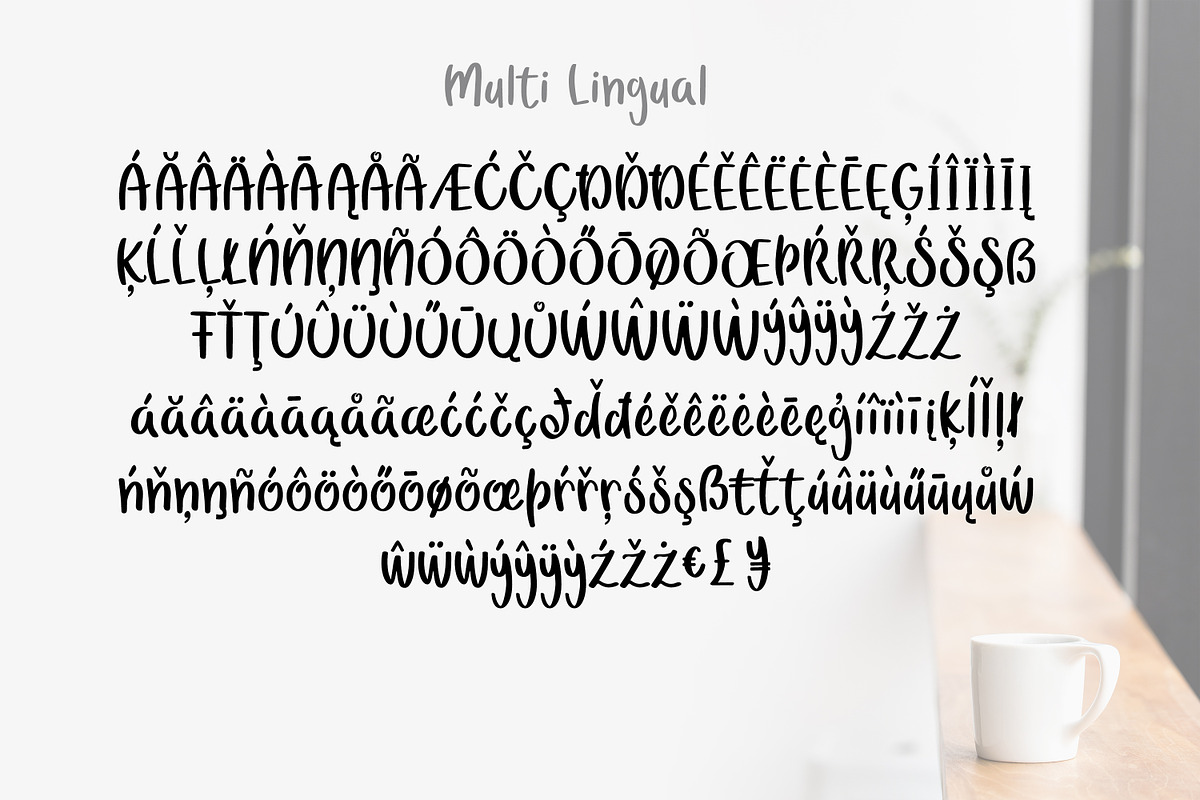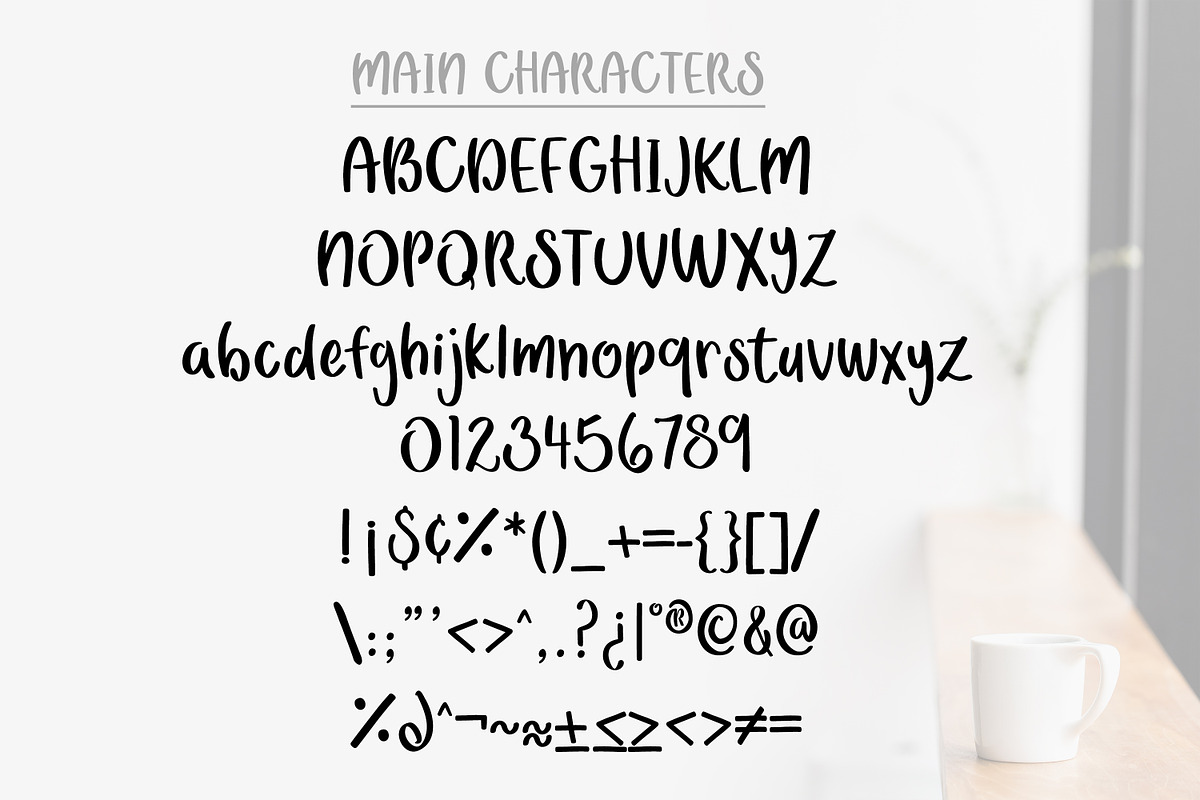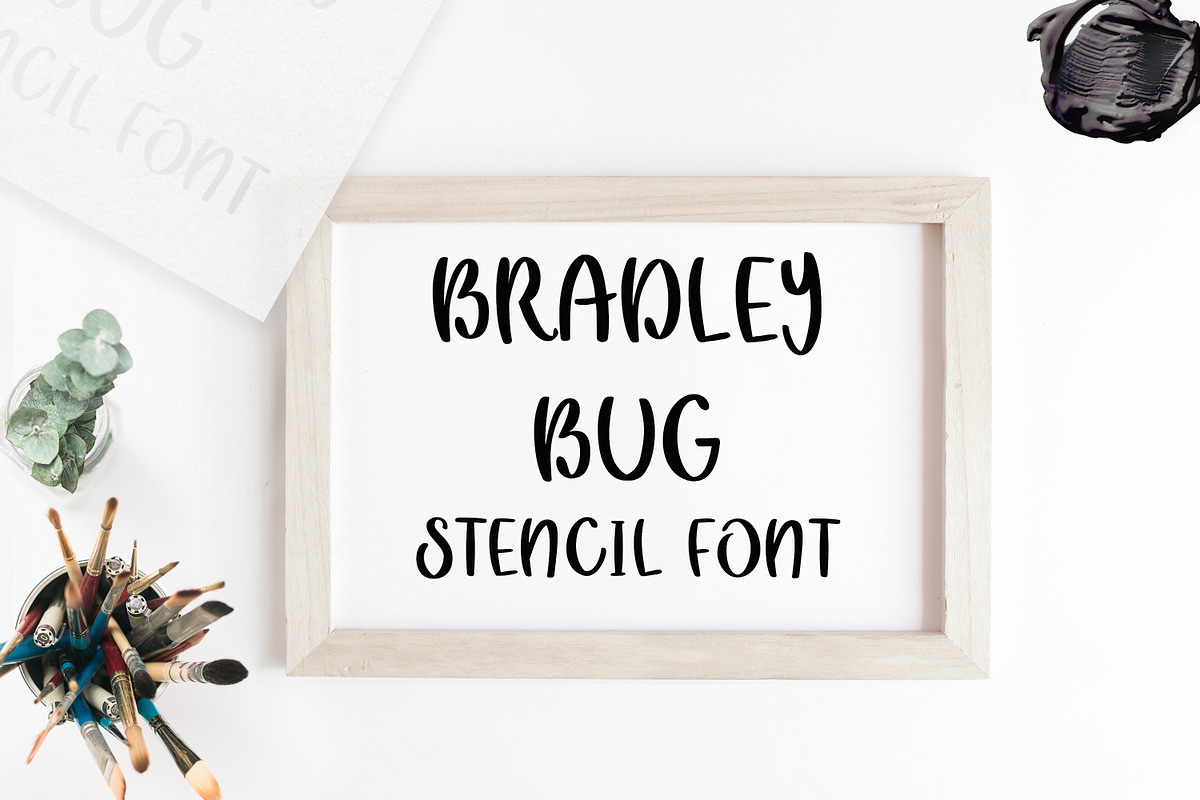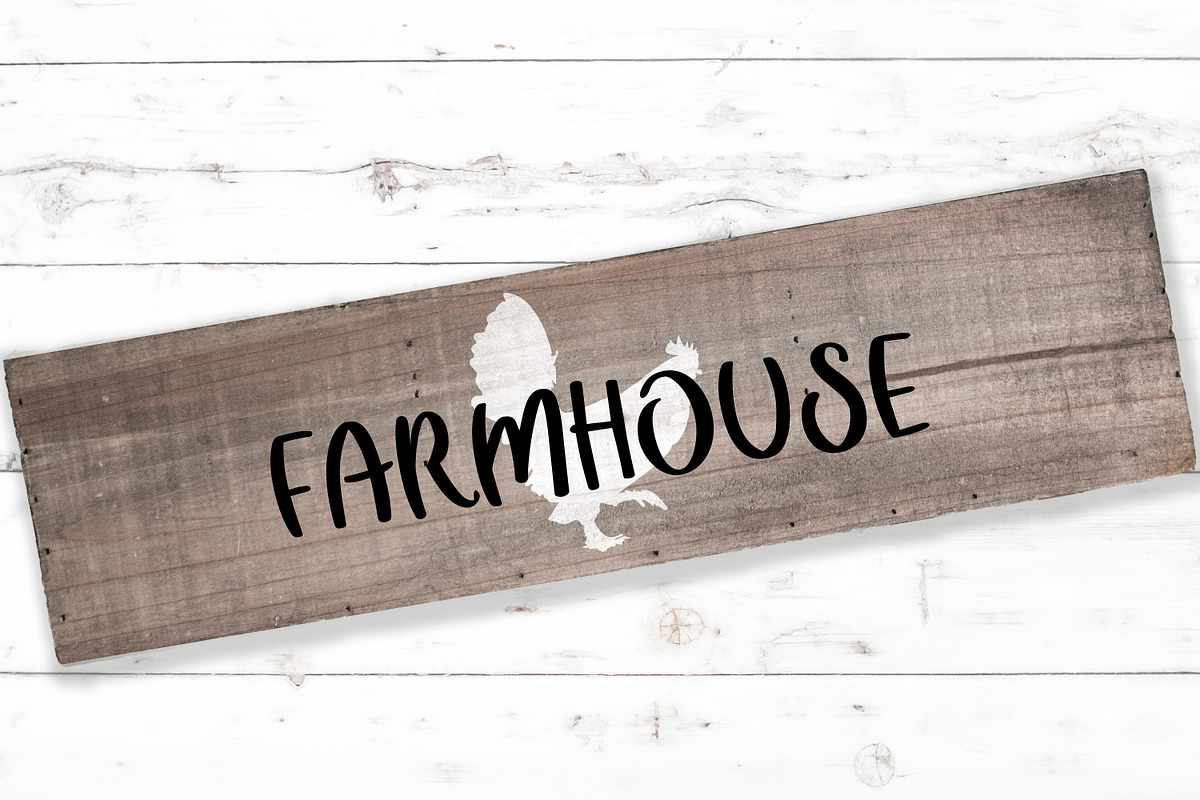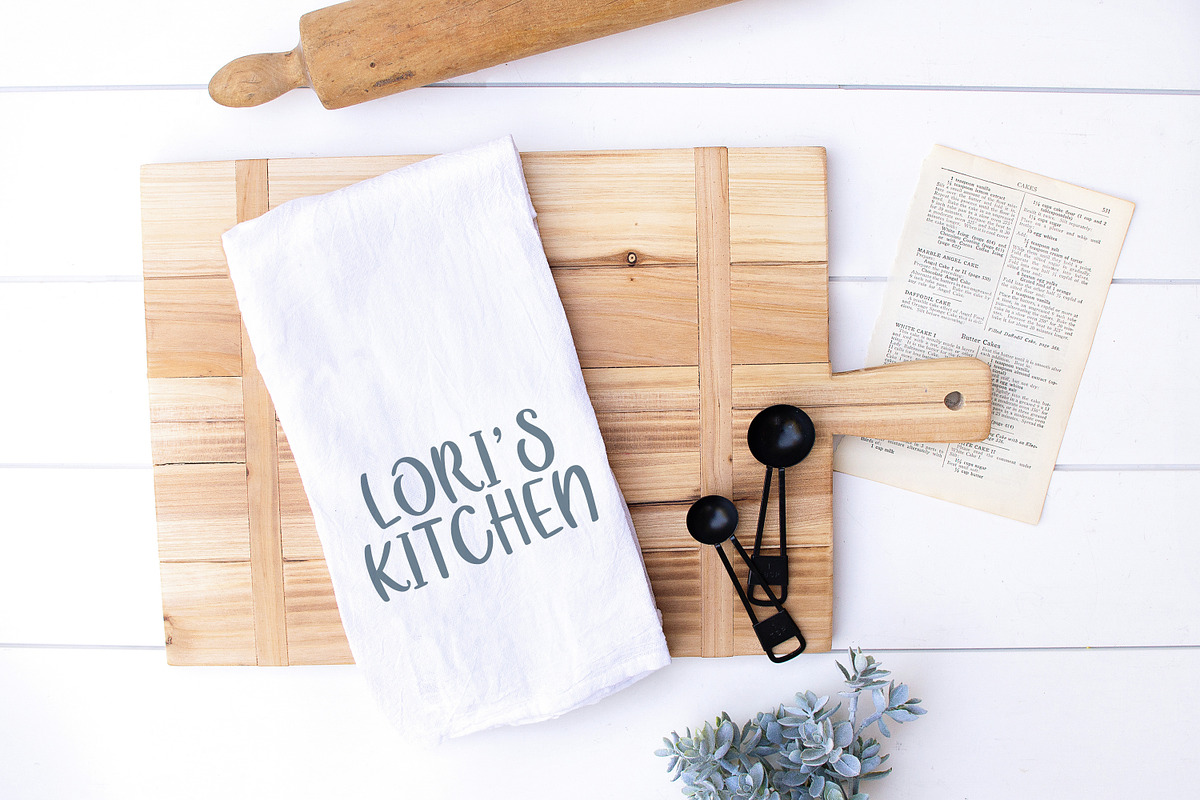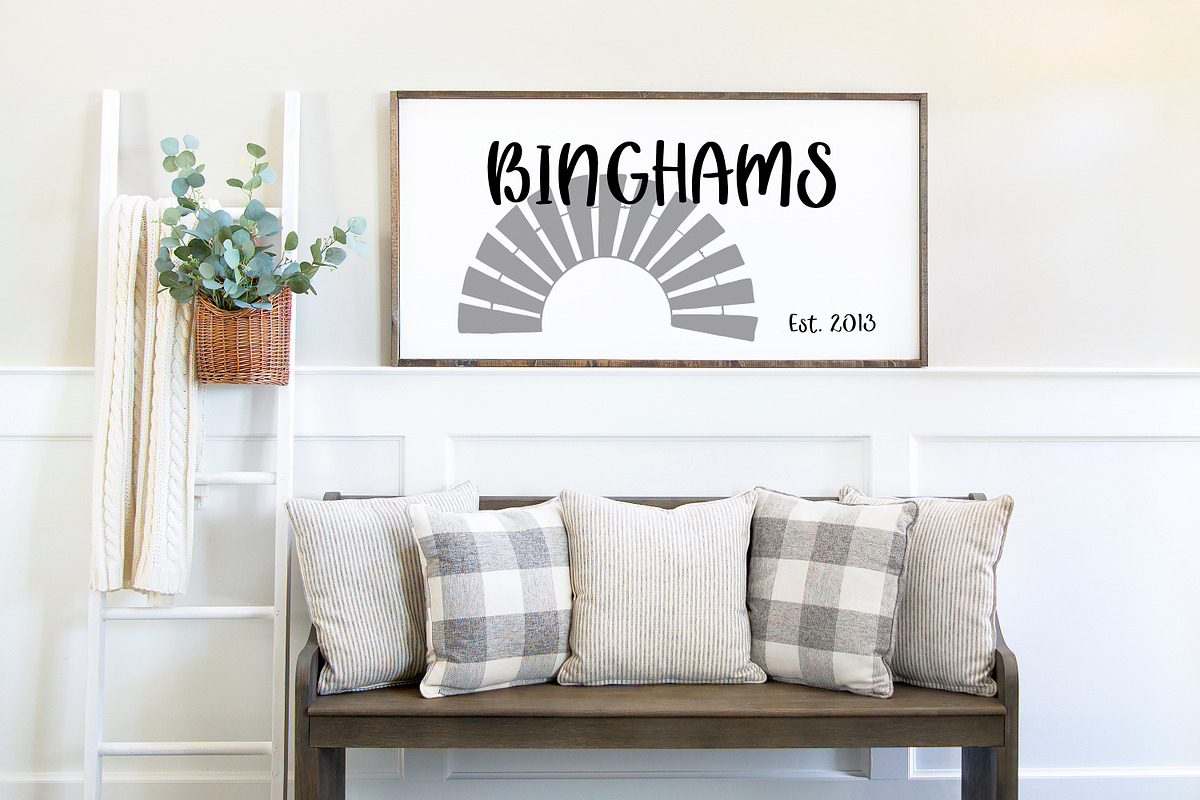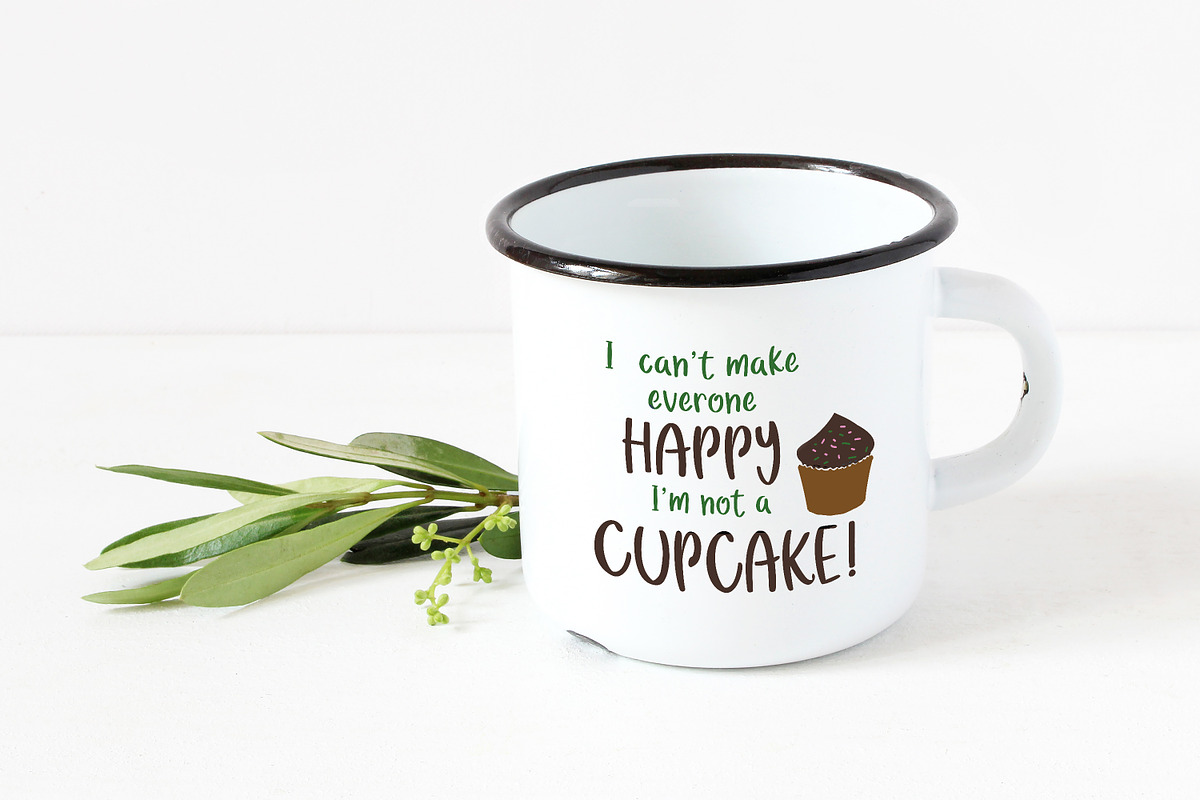
Bradley Bug Stencil Font
I had lots of fun creating this font. It was actually created for stenciling and to make my life easier and to make creating cards and SVG designs. It sure makes weeding easier!! You will notice that the letters like, O B D A are not closed.